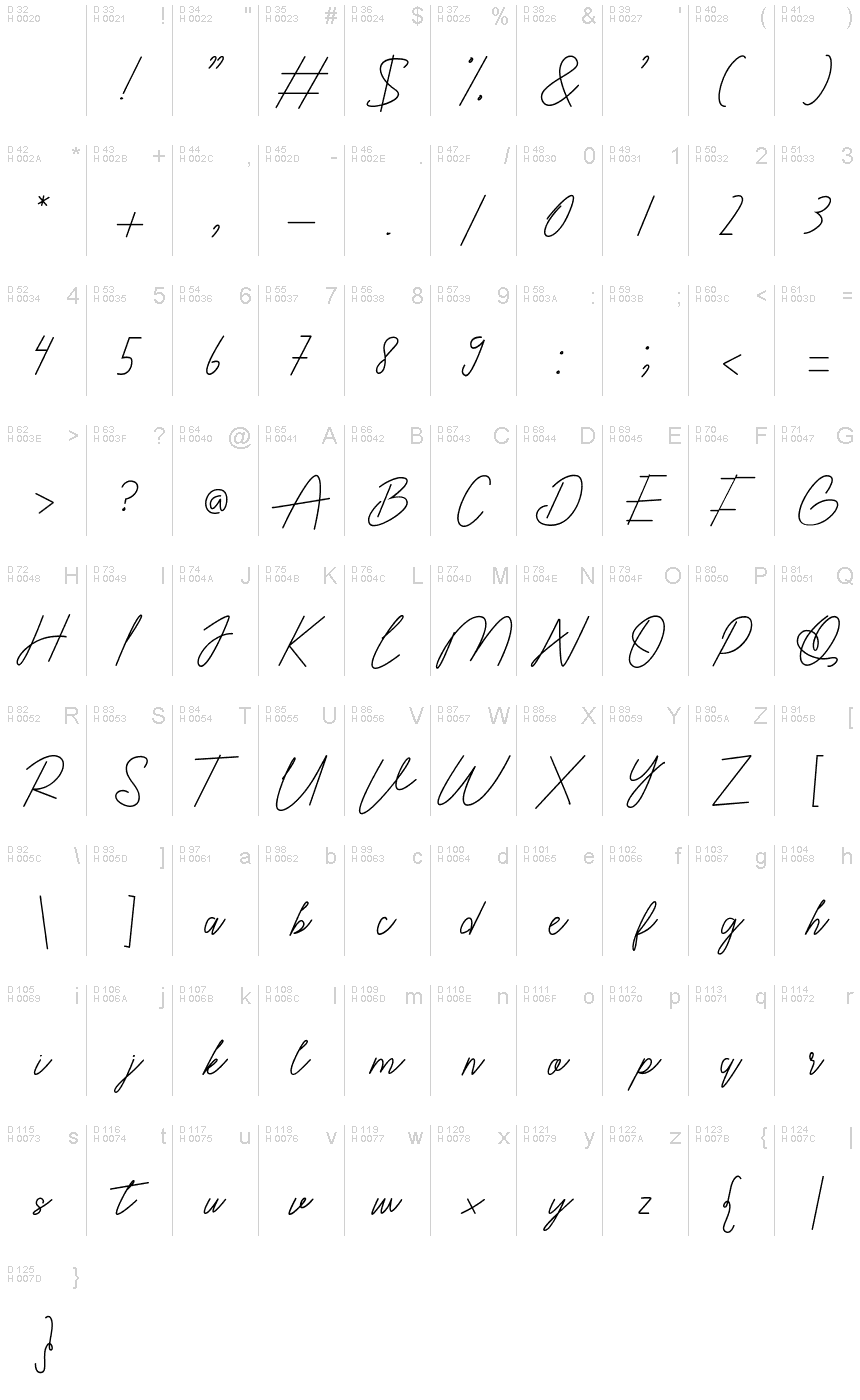
Quetes Signature
Quetes Signature, a captivating and elegant handwritten signature font, designed by share font. With its extra-light weight, this font adds a touch of sophistication to any project.
Perfect for wedding invitations, luxury branding, and personal stationery, Quetes Signature exudes an air of refined beauty. Its fluid strokes and unique charm make it ideal for creating stunning logos or adding a personal touch to social media graphics. Whether you're crafting elegant packaging or designing stylish blog headers, this versatile font is sure to make a lasting impression.
Elevate your projects with Quetes Signature's exquisite flair.